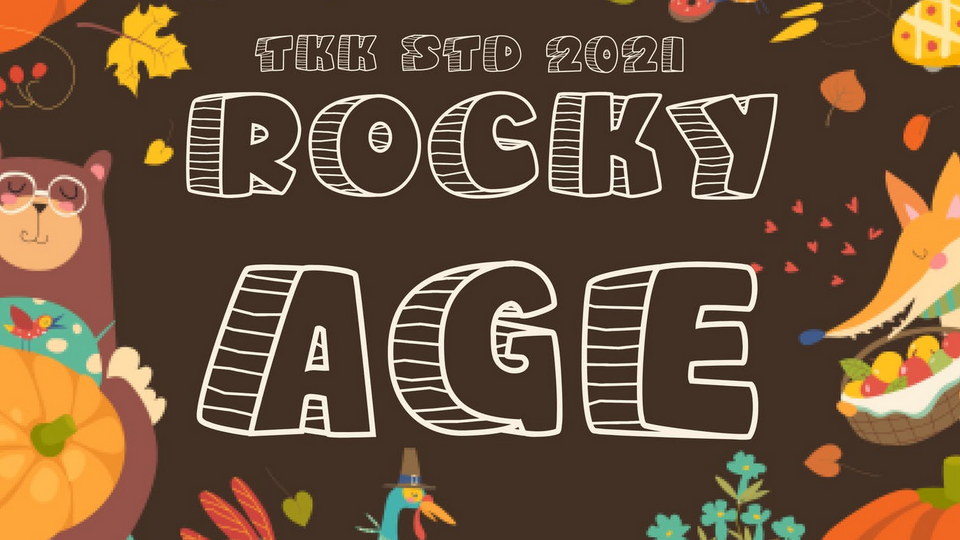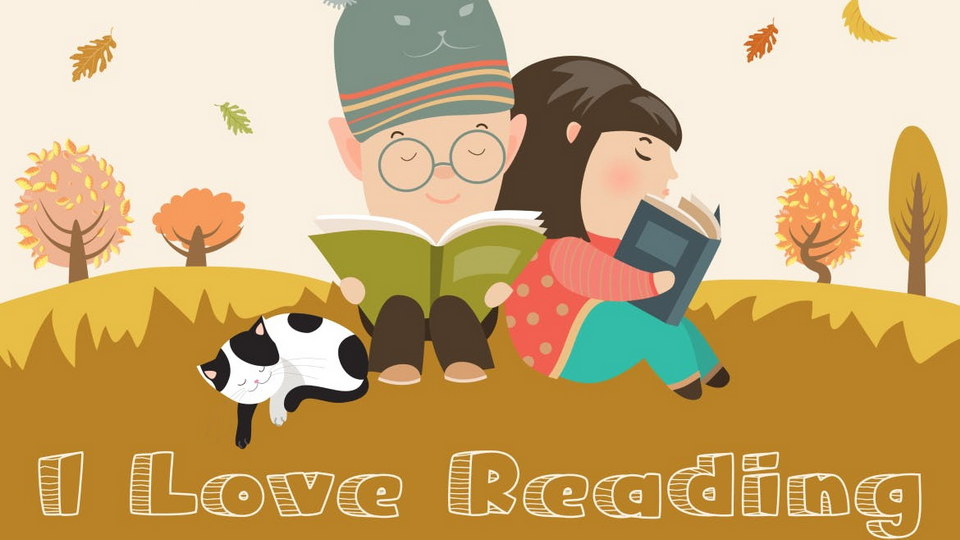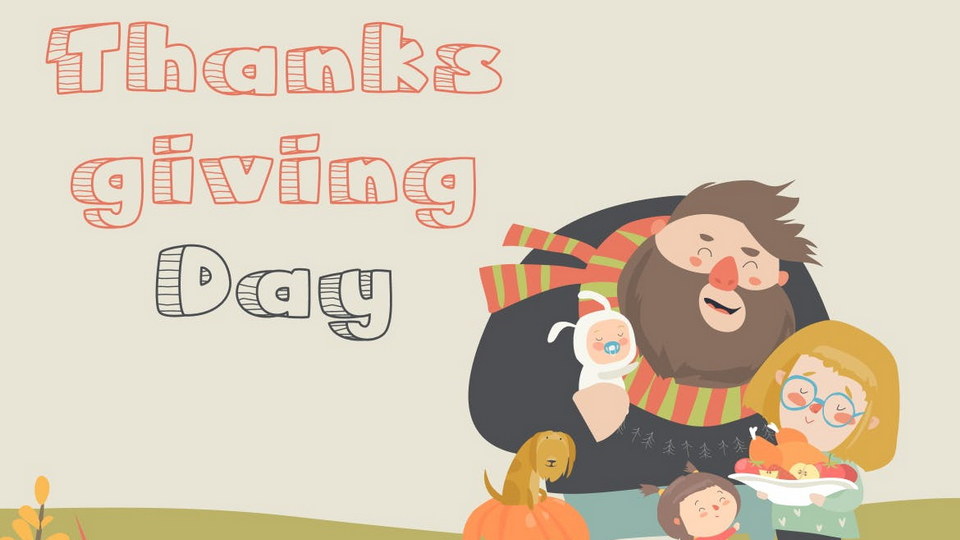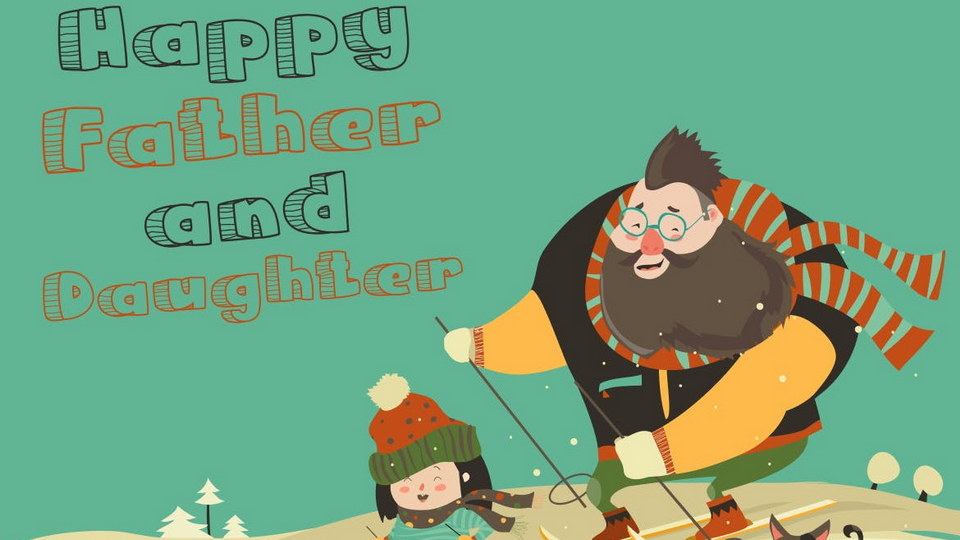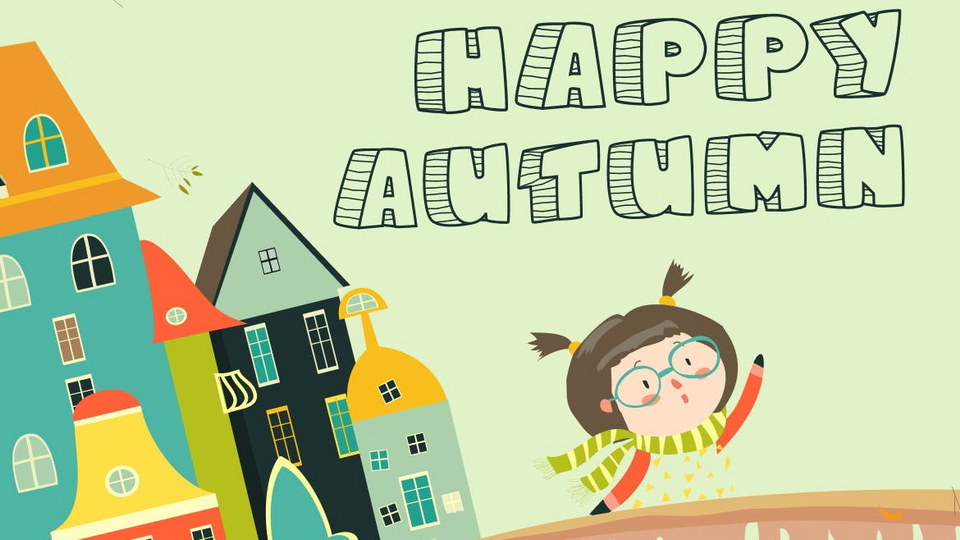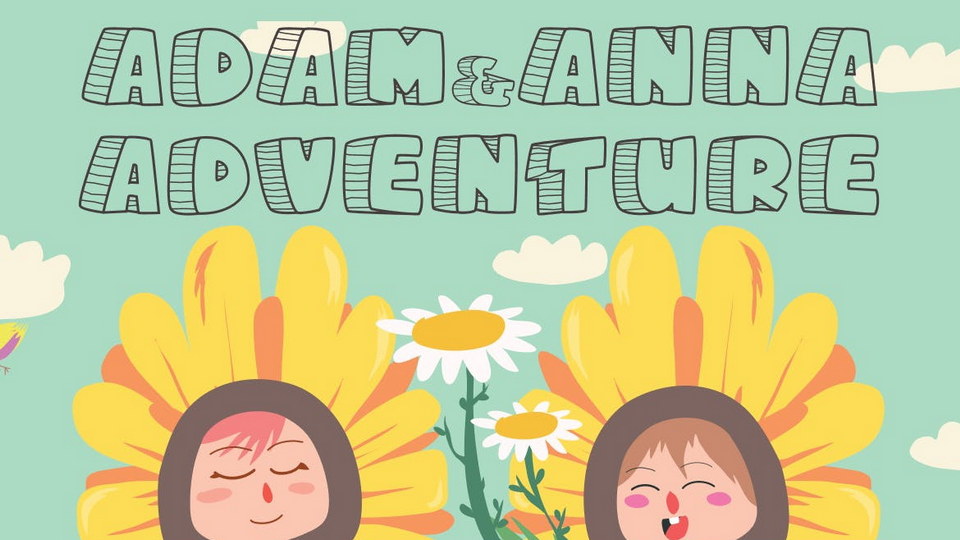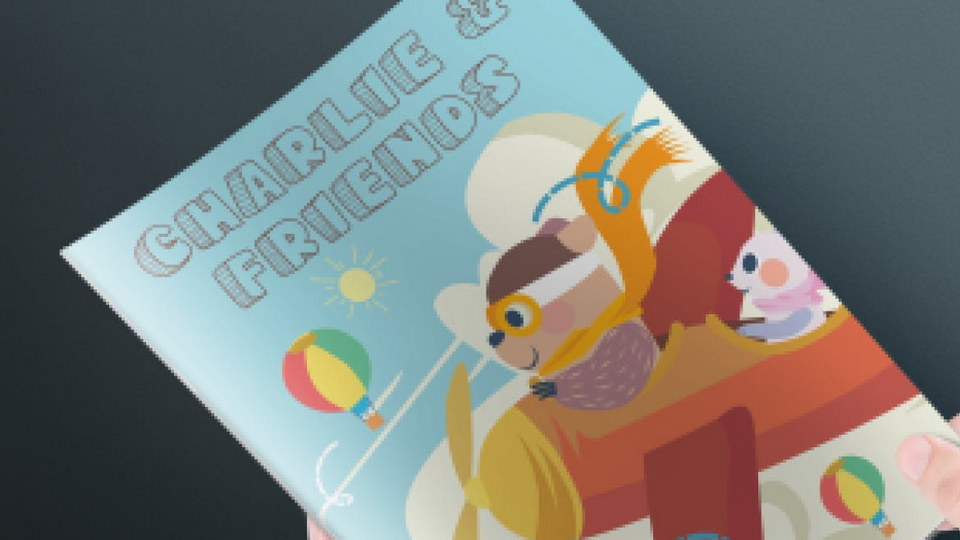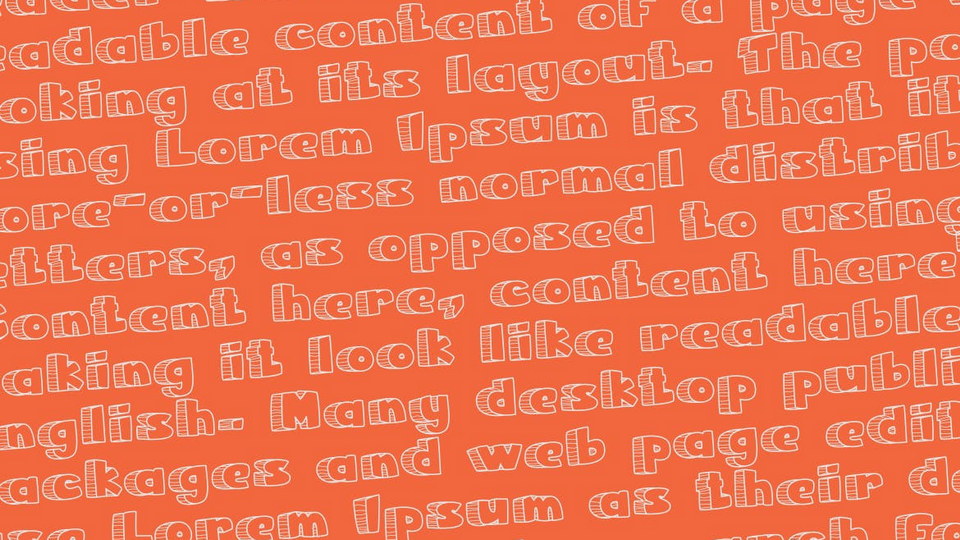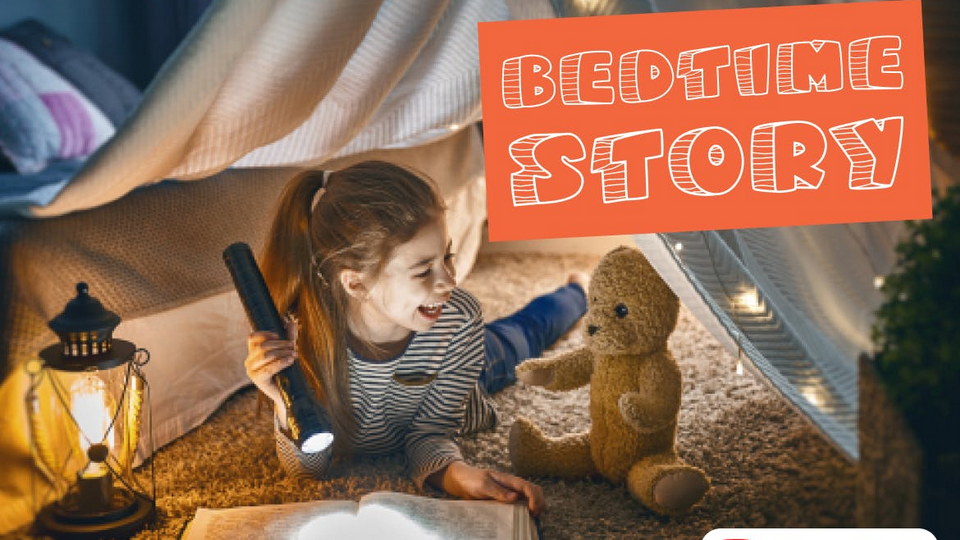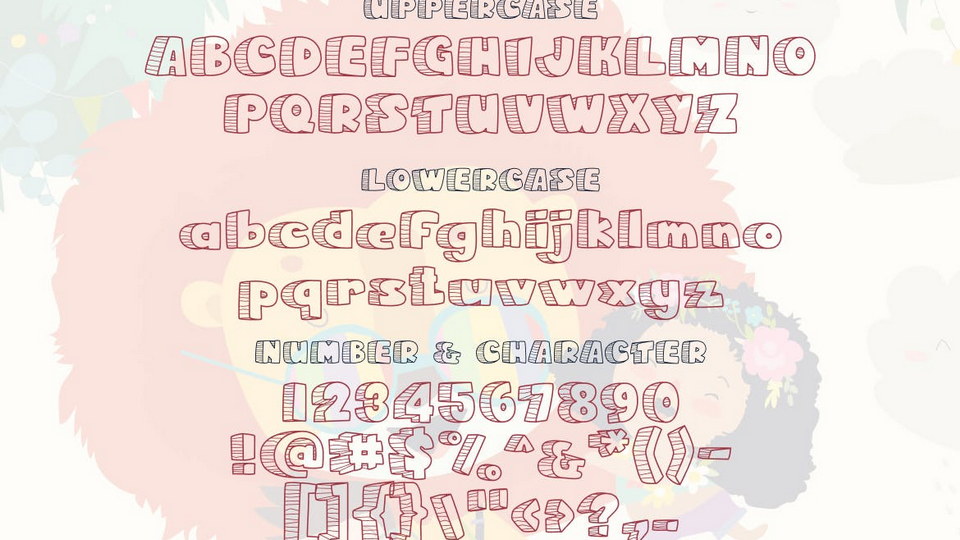
Rocky Age – Kids font
This brings a smile and joy, with a bit of a rocky feeling. The shape reminds us about the Jurassic era as well.
Suit perfectly for Mystery and horror games, posters, movie titles, fast food menus, magazines, youtube covers, youtube thumbnails, social media page covers, and so on…